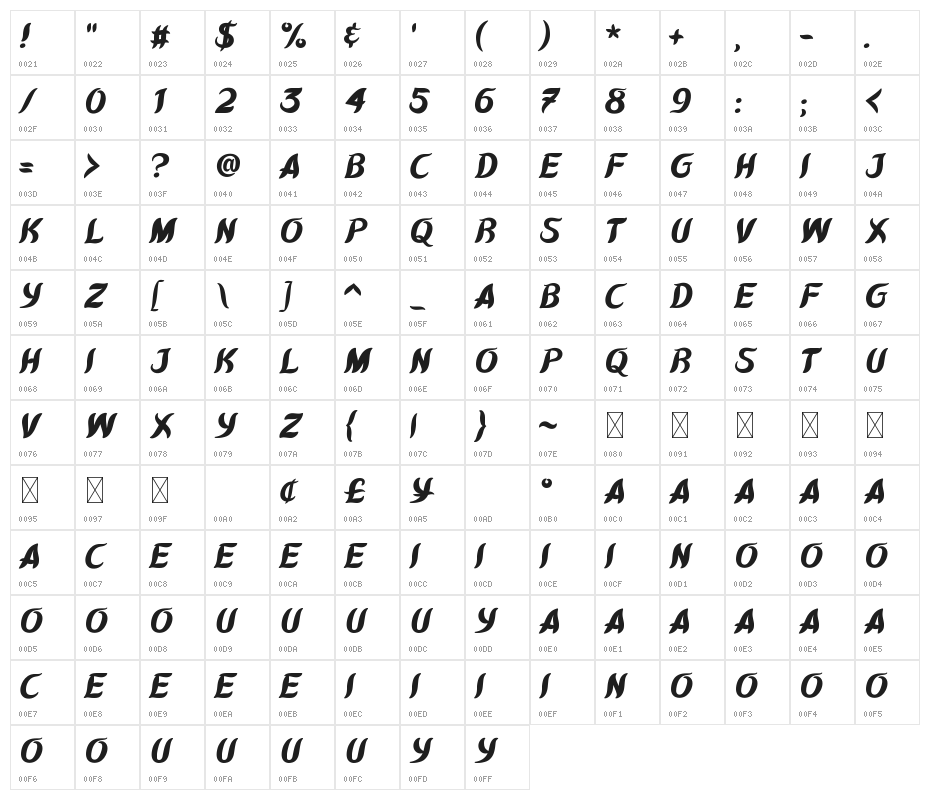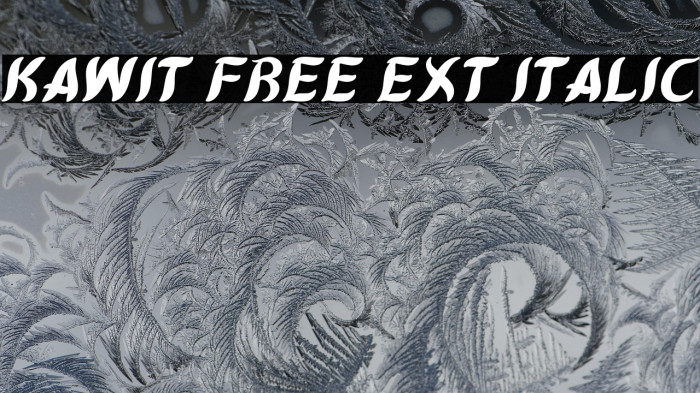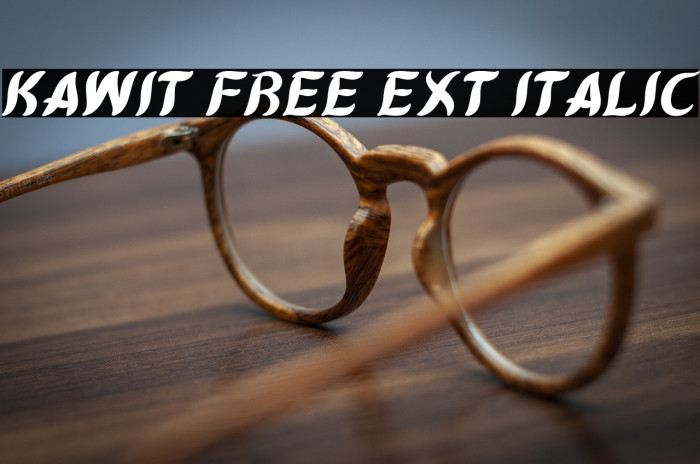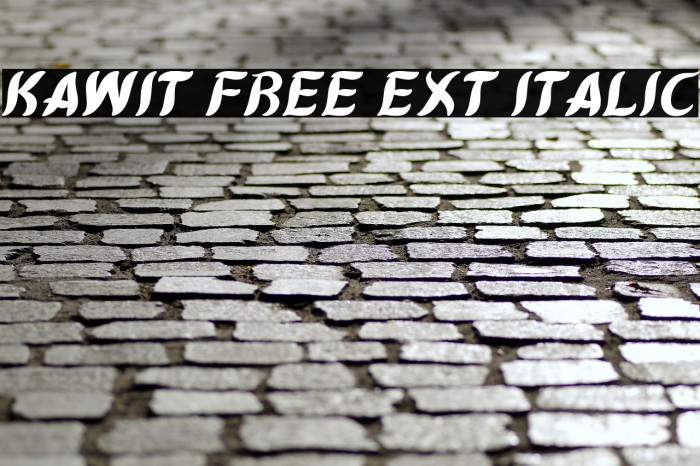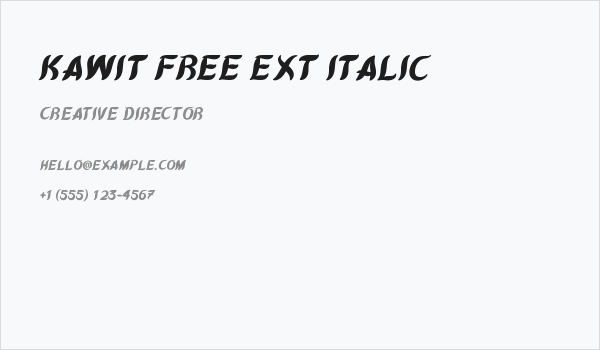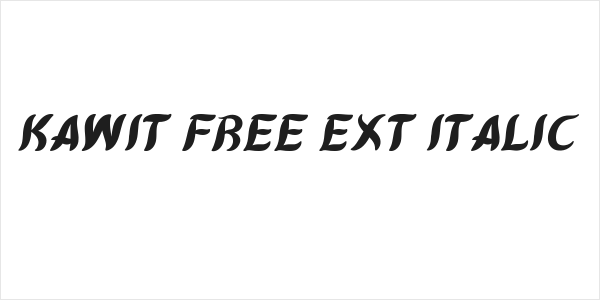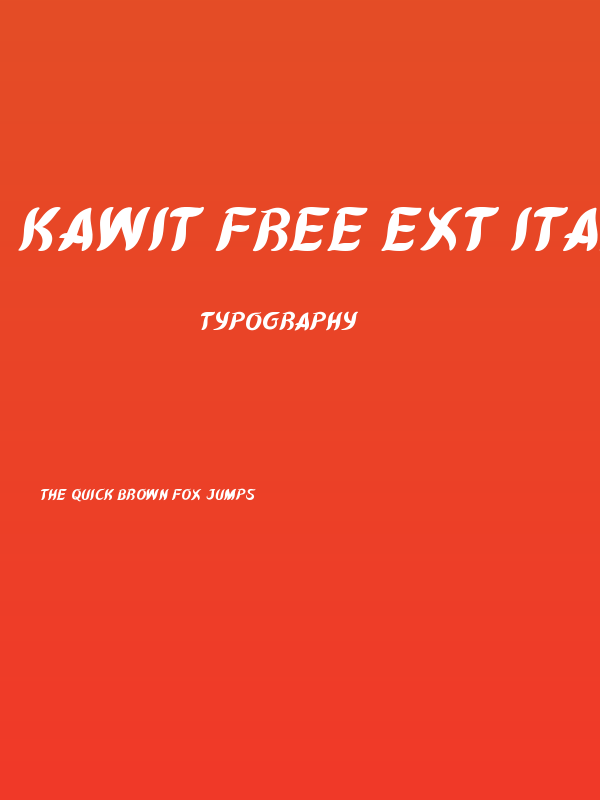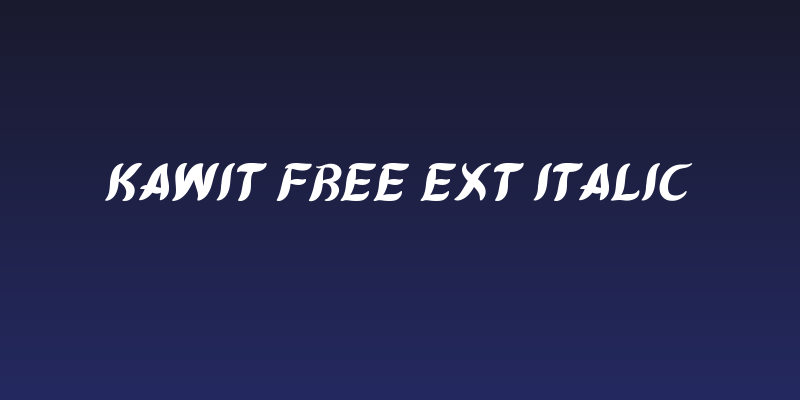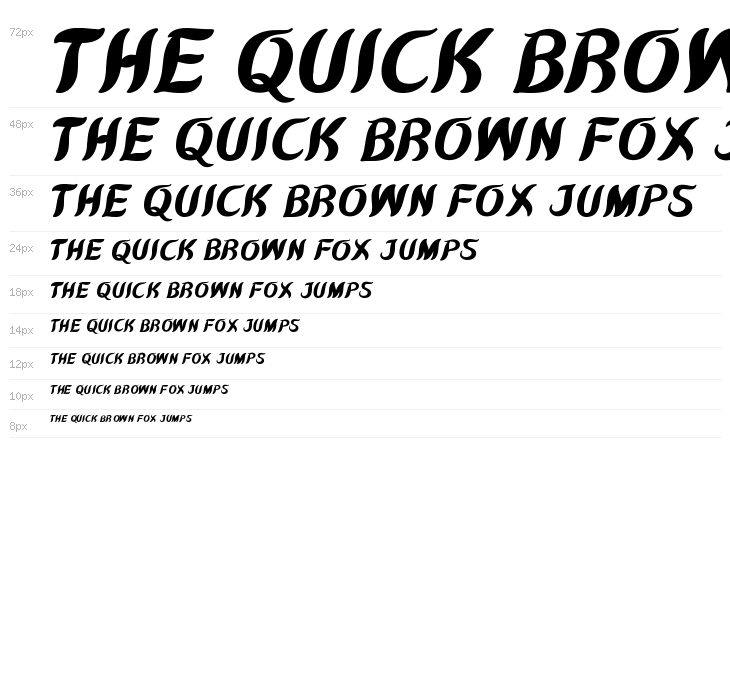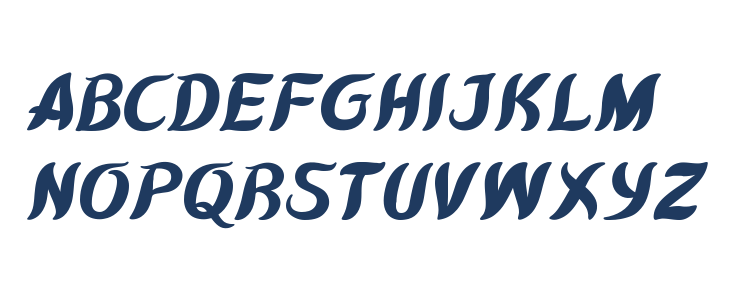
Kawit Free Ext Italic Font
Kawit Free Ext Italic Description
This font features a bold and dynamic italic style, characterized by its flowing and curved letterforms. The strokes are thick and expressive, giving a sense of movement and energy. The uppercase and lowercase letters maintain a consistent slant, enhancing the italicized effect. The numerals and special characters are designed to match the overall aesthetic, with a playful yet sophisticated appearance. The font's unique style makes it stand out, suitable for creative and artistic projects.